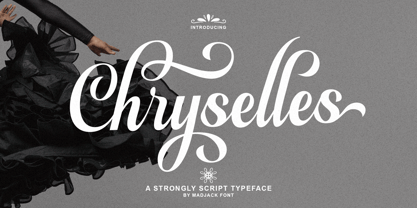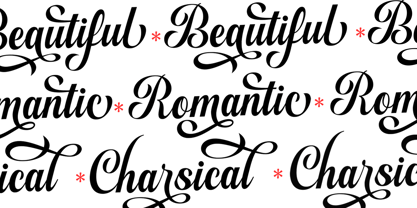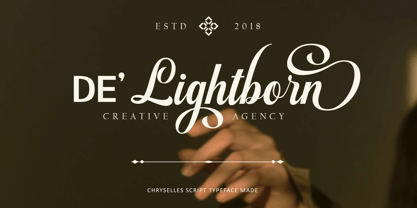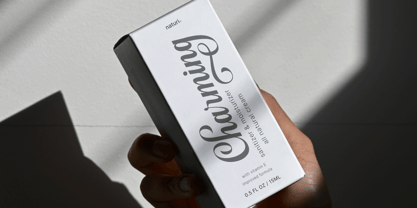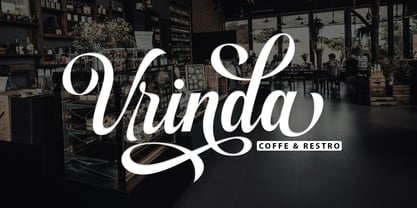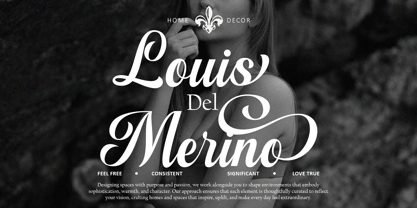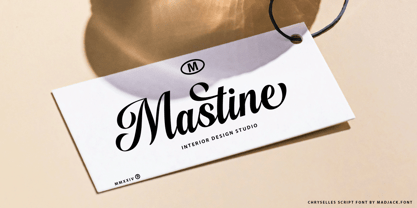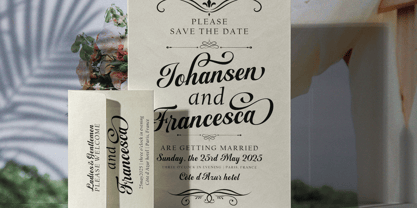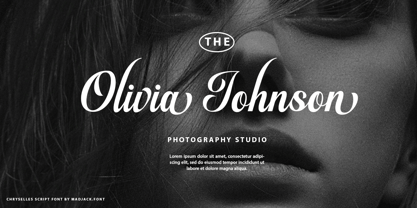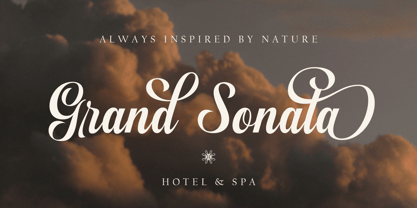
Chryselles Script
Chryselles Script is a handwritten, free-flowing, casual, and elegant calligraphy font. Its modern style is perfect for use in various formal forms such as invitations, labels, restaurant menus, logos, fashion, makeup, stationery, novels, magazines, books, greeting/wedding cards, packaging, labels, or any type of advertising purposes.
alternate characters, including various language support. Equipped with OpenType features with elegant alternate styles and ligatures. OpenType features do not work automatically, but you can access them manually and for the best results needed for your creativity in combining this Glyph variation.